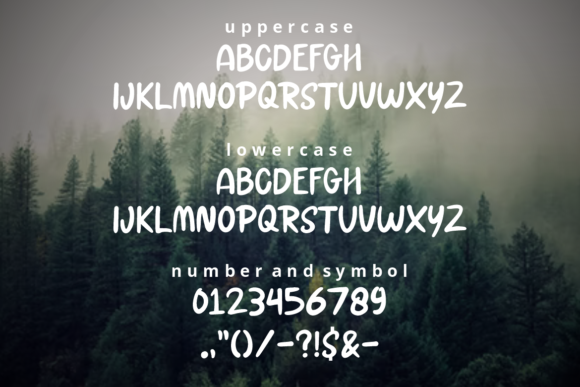
Akira Font: The Ultimate Sans Serif for Creative Projects
Are you tired of using the same old fonts for your creative projects? Look no further than the Akira font, a playful and asymmetrical sans serif that’s sure to take your designs to the next level. In this article, we’ll dive into the world of Akira font, exploring its unique features, benefits, and uses.
What is Akira Font?
Akira is a modern sans serif font that’s both cheerful and easily readable. Its asymmetrical design gives it a unique and playful edge, making it perfect for designers and crafters looking to add some personality to their work. Whether you’re creating a logo, heading, or body text, Akira font is sure to bring a fresh and exciting vibe to your project.
Key Features of Akira Font
- Asymmetrical design: Akira’s asymmetrical design gives it a unique and playful edge, setting it apart from more traditional sans serif fonts.
- Cheerful and readable: Akira’s font design is both cheerful and easily readable, making it perfect for use in a variety of creative projects.
- Versatile: Akira font is versatile and can be used in a range of contexts, from logos and headings to body text and more.
Benefits of Using Akira Font
So why choose Akira font for your next project? Here are just a few benefits of using this exciting sans serif font:
- Adds personality to your design: Akira font’s playful and asymmetrical design adds a touch of personality to your work, helping it to stand out from the crowd.
- Improves readability: Akira font’s clear and readable design makes it easy for readers to quickly and easily understand your message.
- Enhances creativity: Akira font’s unique design inspires creativity and can help to spark new ideas and inspiration for your project.
Uses of Akira Font
Akira font is a versatile font that can be used in a range of creative projects, including:
- Logo design: Akira font’s unique design makes it perfect for use in logo design, helping to create a memorable and eye-catching brand identity.
- Headings and titles: Akira font’s clear and readable design makes it ideal for use in headings and titles, helping to draw attention to key information.
- Body text: Akira font’s cheerful and easily readable design makes it suitable for use in body text, helping to keep readers engaged and interested.
Design Tips for Using Akira Font
Here are a few design tips to keep in mind when using Akira font:
- Experiment with font sizes: Akira font’s clear and readable design makes it suitable for use in a range of font sizes, from large headings to smaller body text.
- Combine with other fonts: Akira font pairs well with a range of other fonts, so don’t be afraid to experiment with different font combinations to create a unique look.
- Use color effectively: Akira font’s playful design makes it perfect for use with bright and bold colors, helping to add visual interest to your design.
In conclusion, Akira font is a unique and exciting sans serif font that’s perfect for designers and crafters looking to add some personality to their work. Its asymmetrical design, cheerful and readable font, and versatility make it suitable for use in a range of creative projects. Whether you’re creating a logo, heading, or body text, Akira font is sure to take your designs to the next level.
Get Creative with Akira Font